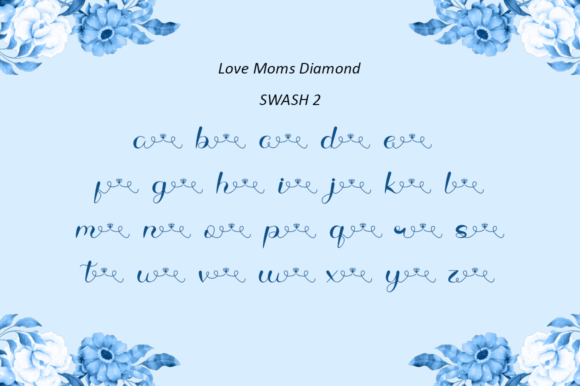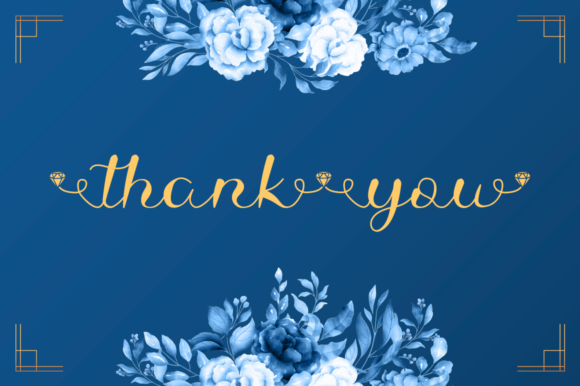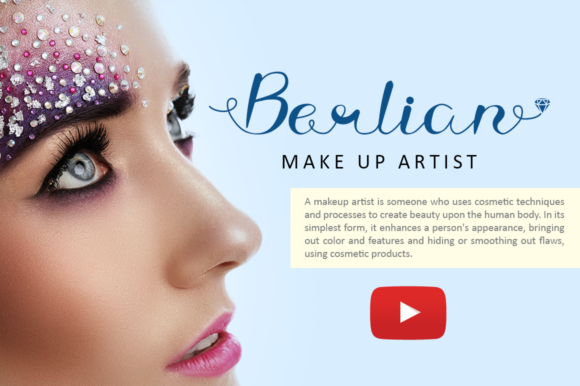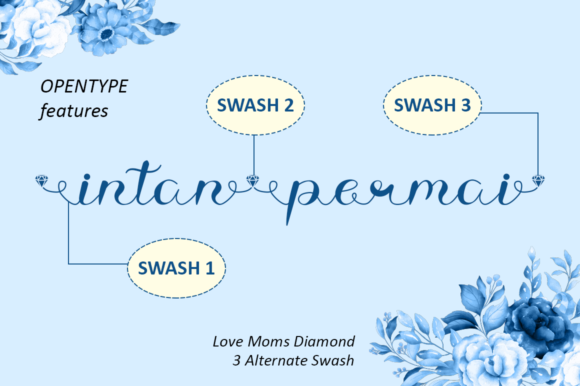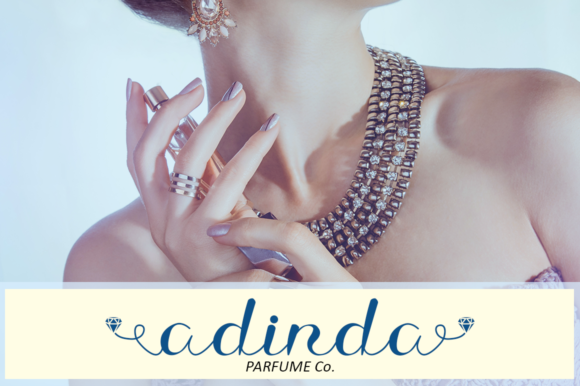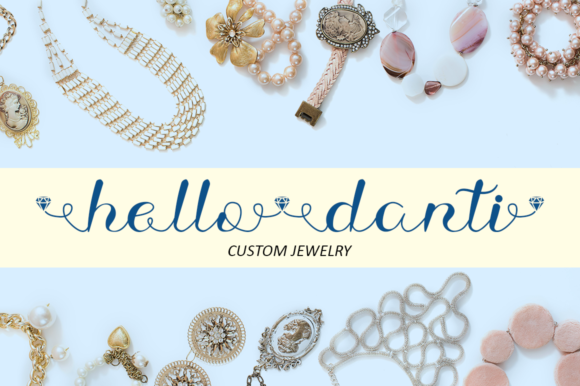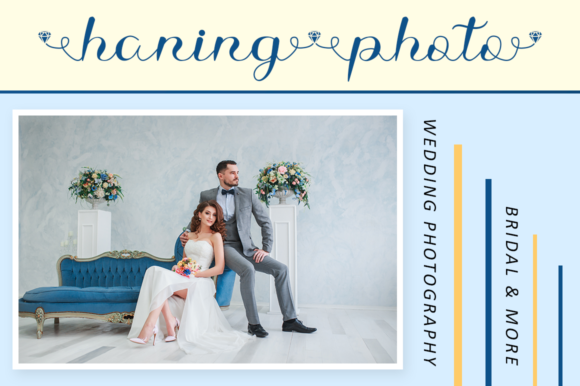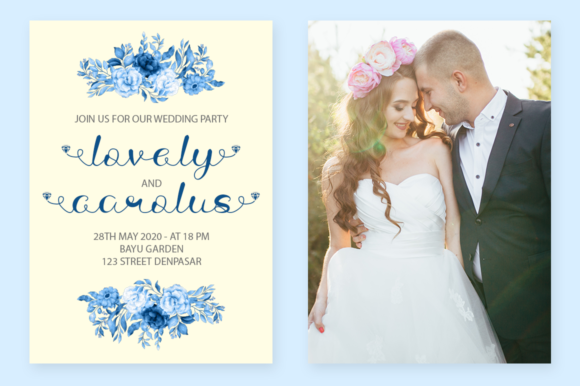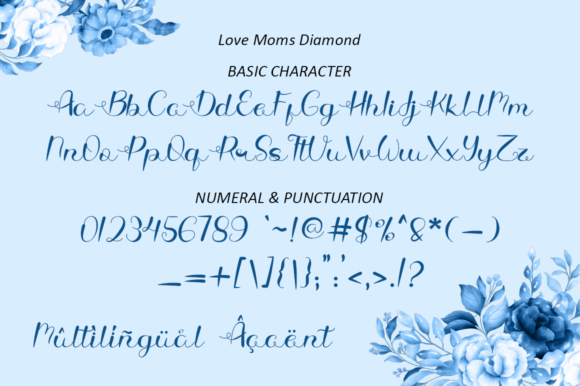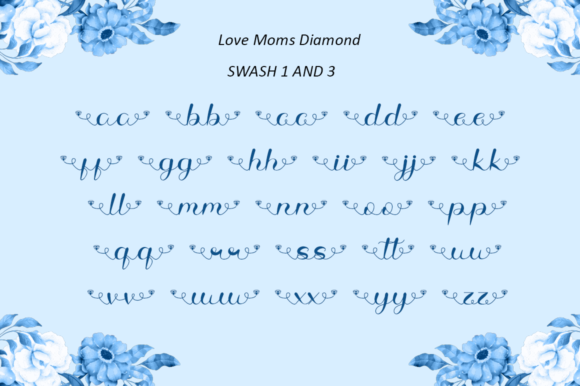
Love Moms Diamond Font
About Love Moms Diamond Font
Love Moms Diamond is a sweet and beautiful script font. It features an elegant style that makes it perfect for logos, branding, invitations, stationery, wedding designs, social media posts, and much more.